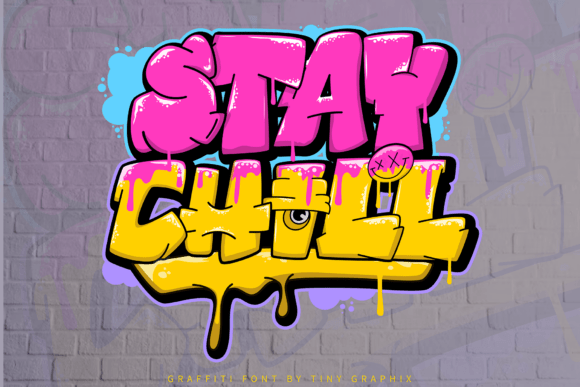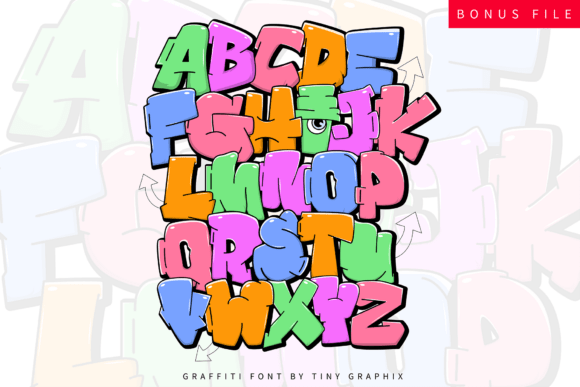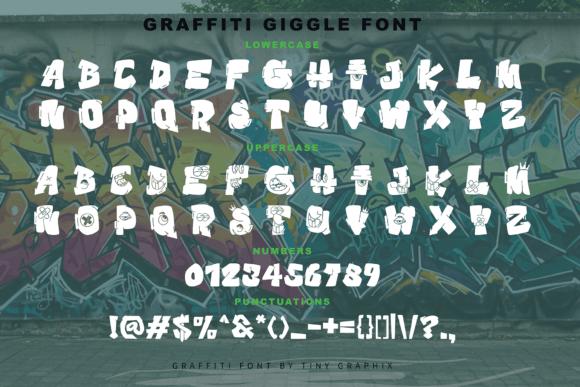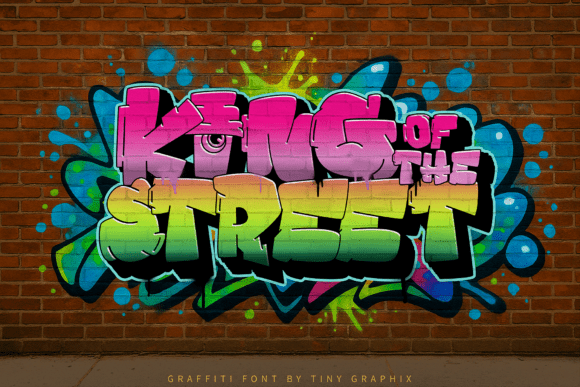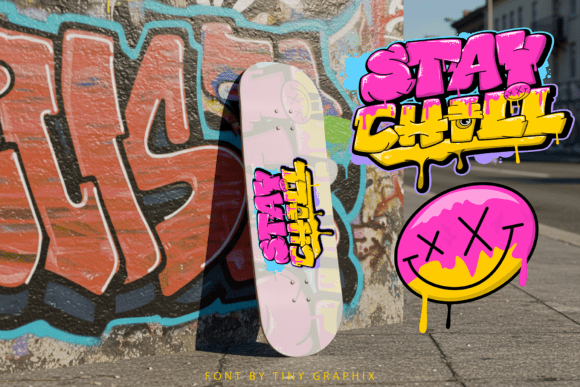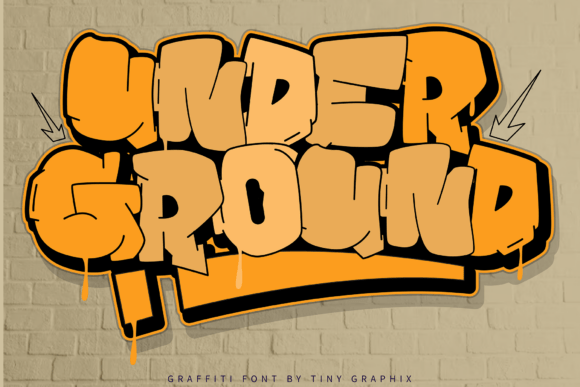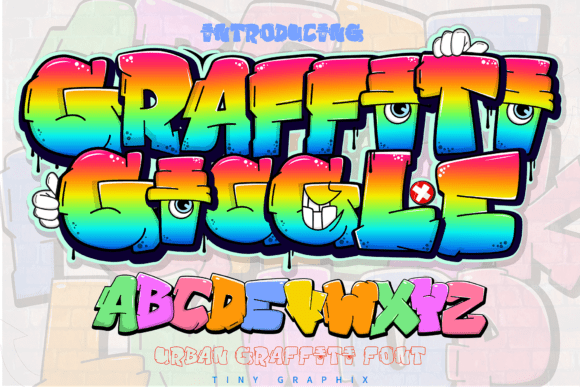
Introducing Graffiti Giggle: The Ultimate Urban Graffiti Font for Playful Designs
Are you tired of using the same old fonts for your designs? Do you want to add a bold and playful touch to your work? Look no further than Graffiti Giggle, a fun and urban graffiti font that’s perfect for bringing street vibes to your designs. In this article, we’ll take a closer look at Graffiti Giggle and explore its features, benefits, and uses.
What is Graffiti Giggle?
Graffiti Giggle is a bold and colorful graffiti display font that’s packed with personality. This font bursts with energy, featuring chunky bubble-style letters, cartoon eyes, comic-inspired accents, and dripping spray-paint details that give it a truly urban edge. With its unique and playful design, Graffiti Giggle is perfect for designers who want to add a fresh and bold twist to their work.
Key Features of Graffiti Giggle
So, what makes Graffiti Giggle so special? Here are some of its key features:
- Uppercase & lowercase letters: Graffiti Giggle includes both uppercase and lowercase letters, giving you flexibility and versatility in your designs.
- Numbers & full punctuation: The font also includes numbers and full punctuation, making it a comprehensive and practical choice for designers.
- Unique character variations: Graffiti Giggle features unique character variations with doodle-style expressions, adding an extra layer of personality to your designs.
- BONUS PNG elements: The font comes with BONUS PNG elements, including colorful graffiti alphabets, which can be used for creative mockups.
Perfect for a Range of Design Projects
Graffiti Giggle is a versatile font that’s perfect for a range of design projects, including:
- Kids’ game titles: The font’s playful and fun design makes it ideal for kids’ game titles, adding a bold and eye-catching touch to your designs.
- Streetwear branding: Graffiti Giggle’s urban edge makes it perfect for streetwear branding, giving your designs a fresh and edgy look.
- YouTube and Twitch graphics: The font’s bold and colorful design makes it ideal for YouTube and Twitch graphics, adding a playful and attention-grabbing touch to your videos.
- Urban posters & hip-hop flyers: Graffiti Giggle’s urban vibe makes it perfect for urban posters and hip-hop flyers, giving your designs a bold and authentic look.
- Comic covers, cartoon logos & stickers: The font’s comic-inspired design makes it ideal for comic covers, cartoon logos, and stickers, adding a fun and playful touch to your designs.
Benefits of Using Graffiti Giggle
So, why should you choose Graffiti Giggle for your designs? Here are some of the benefits of using this font:
- Adds a bold and playful touch: Graffiti Giggle adds a bold and playful touch to your designs, making them stand out from the crowd.
- Perfect for urban and streetwear designs: The font’s urban edge makes it perfect for urban and streetwear designs, giving your work a fresh and edgy look.
- Easy to use: Graffiti Giggle is easy to use, with a range of file formats and a comprehensive character set.
- Increases creativity: The font’s unique and playful design can help inspire creativity and add a new level of fun to your designs.
In conclusion, Graffiti Giggle is a fun and urban graffiti font that’s perfect for designers who want to add a bold and playful touch to their work. With its unique and playful design, comprehensive character set, and range of file formats, Graffiti Giggle is a must-have for any creative graffiti lover. Whether you’re designing for print, digital, or merch, Graffiti Giggle is the perfect choice for adding a fresh and bold twist to your designs.